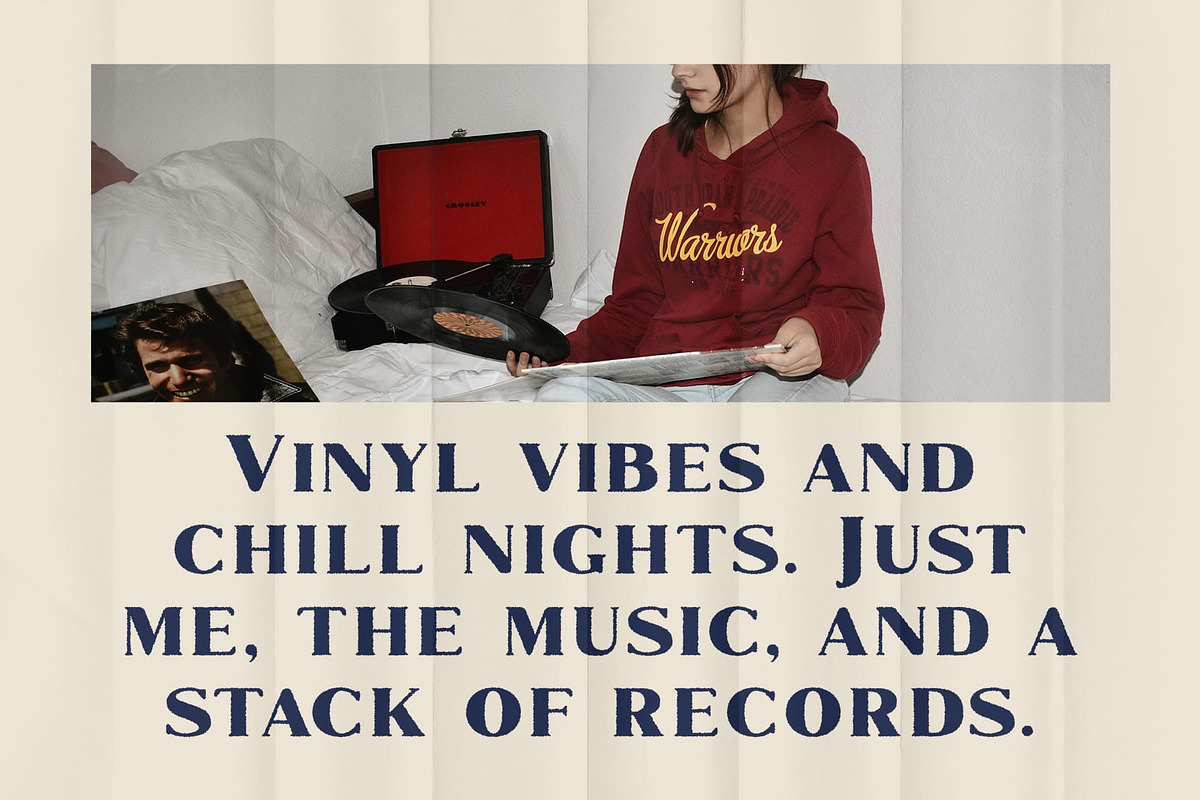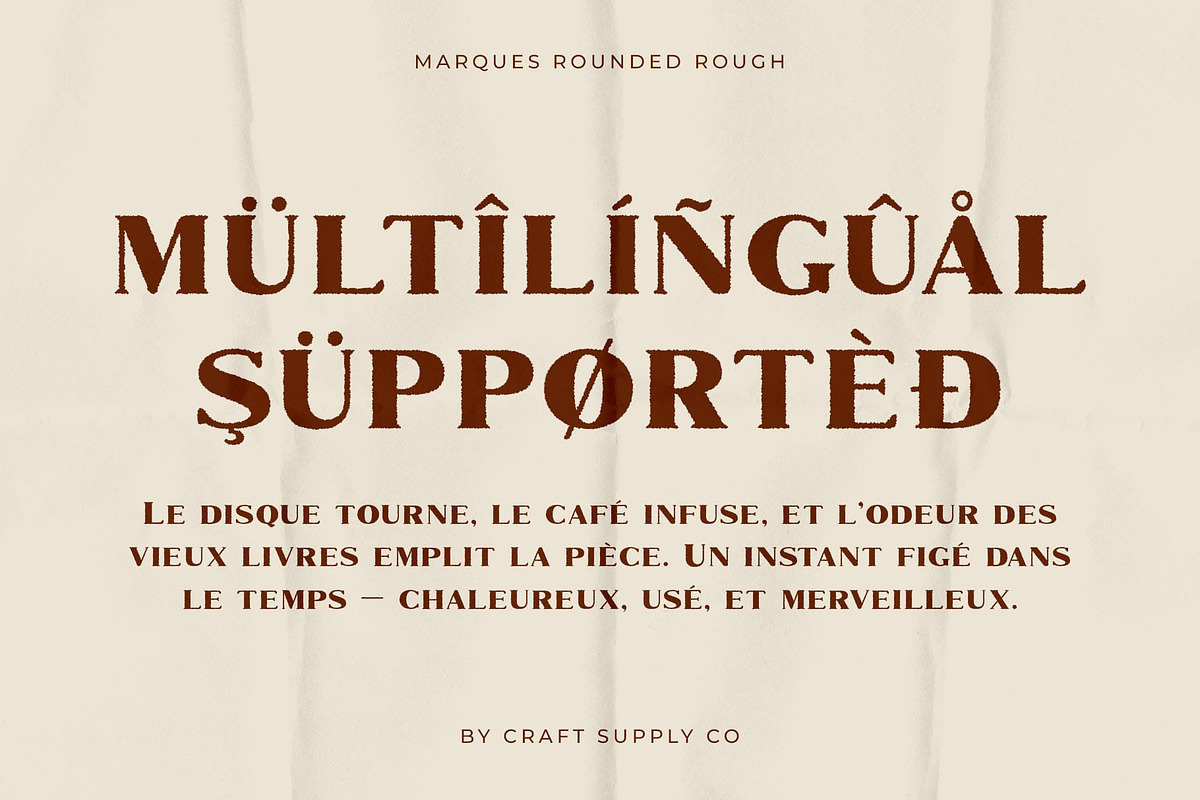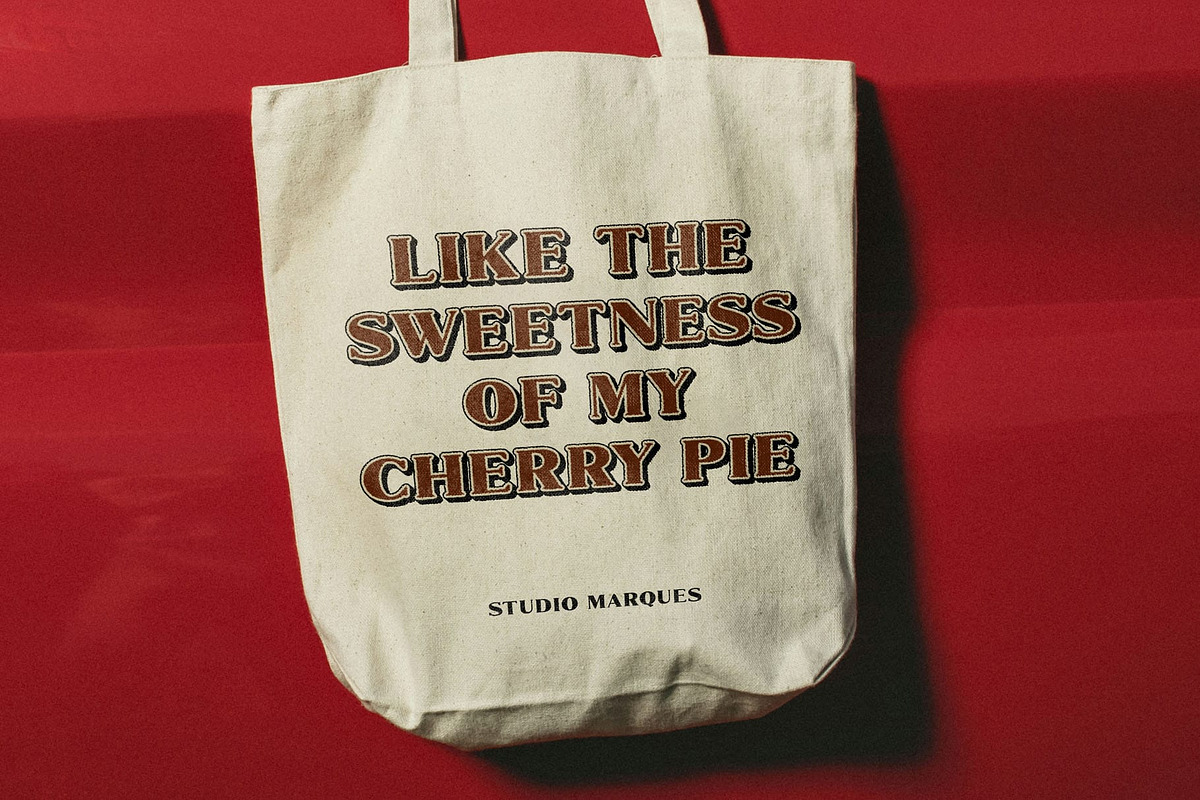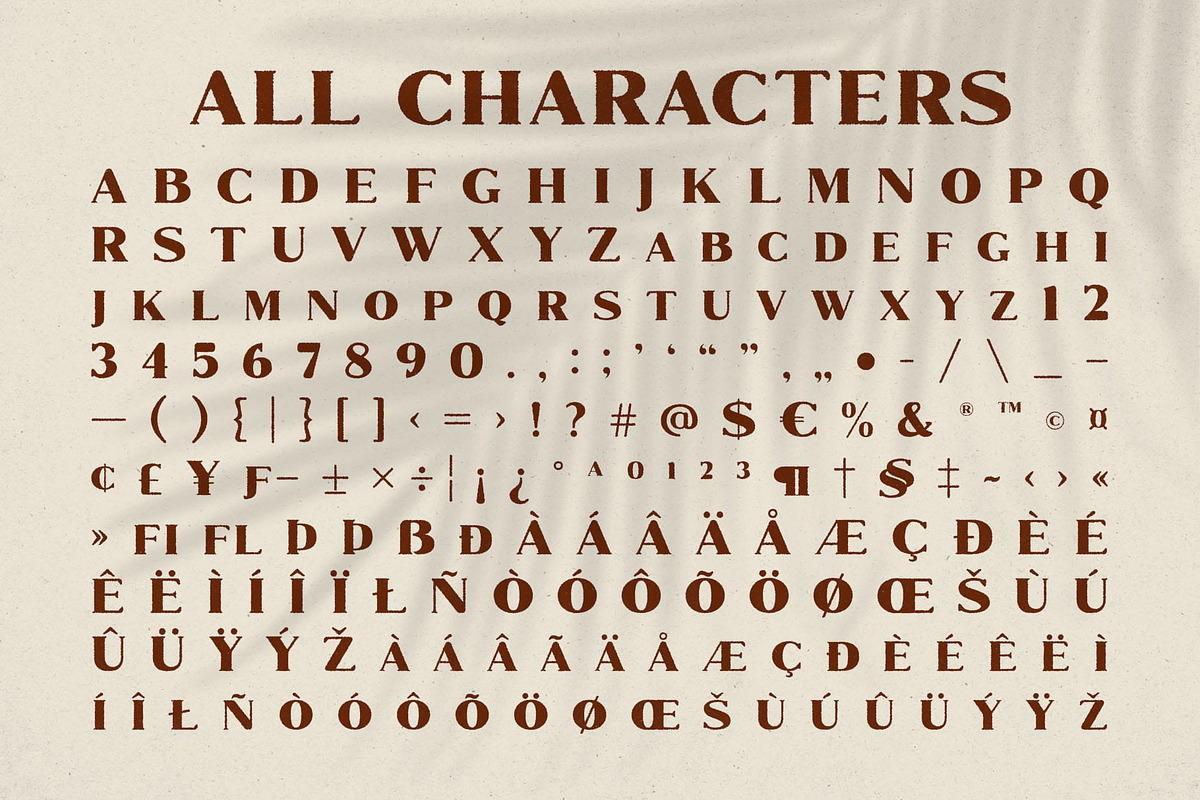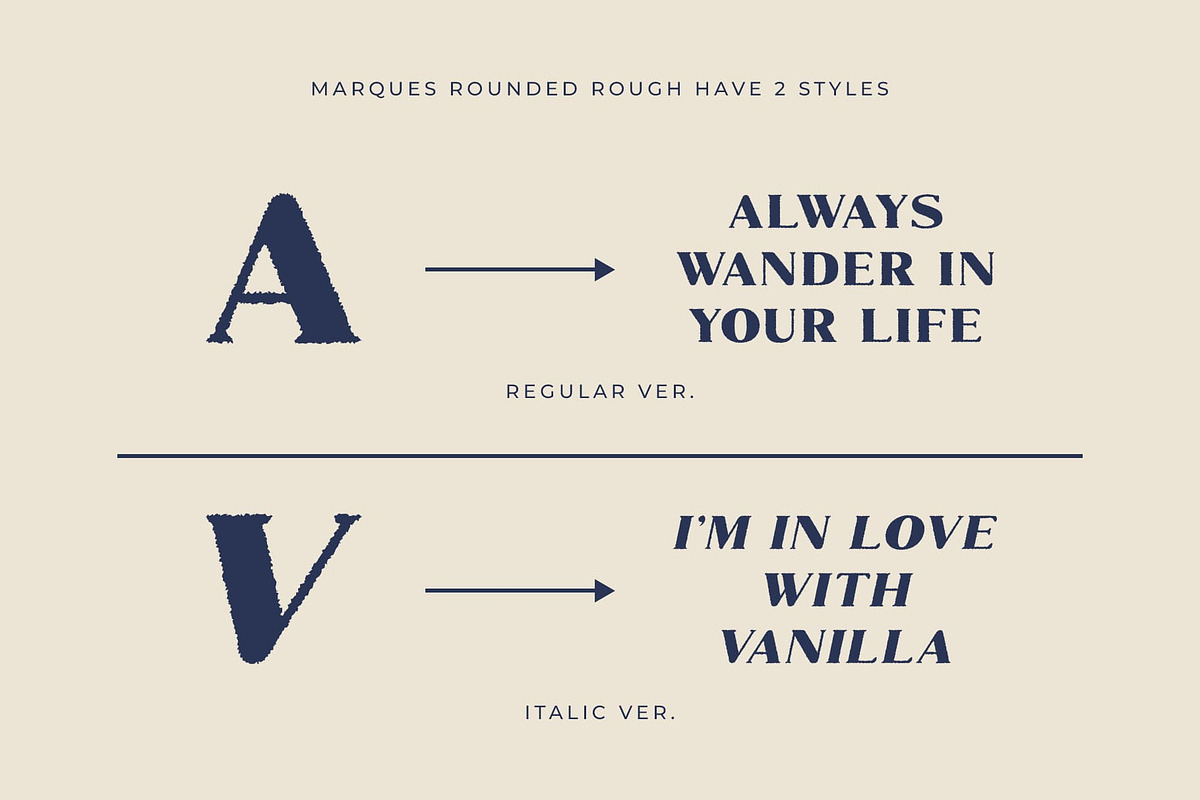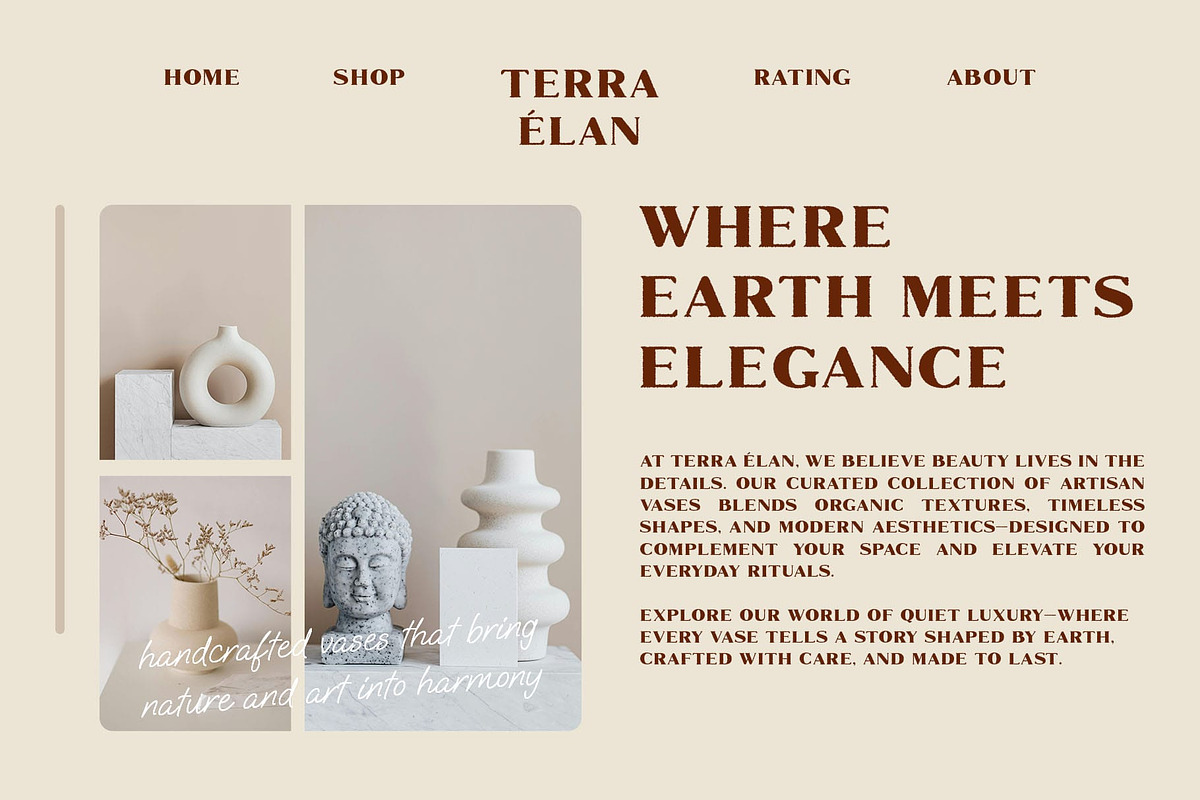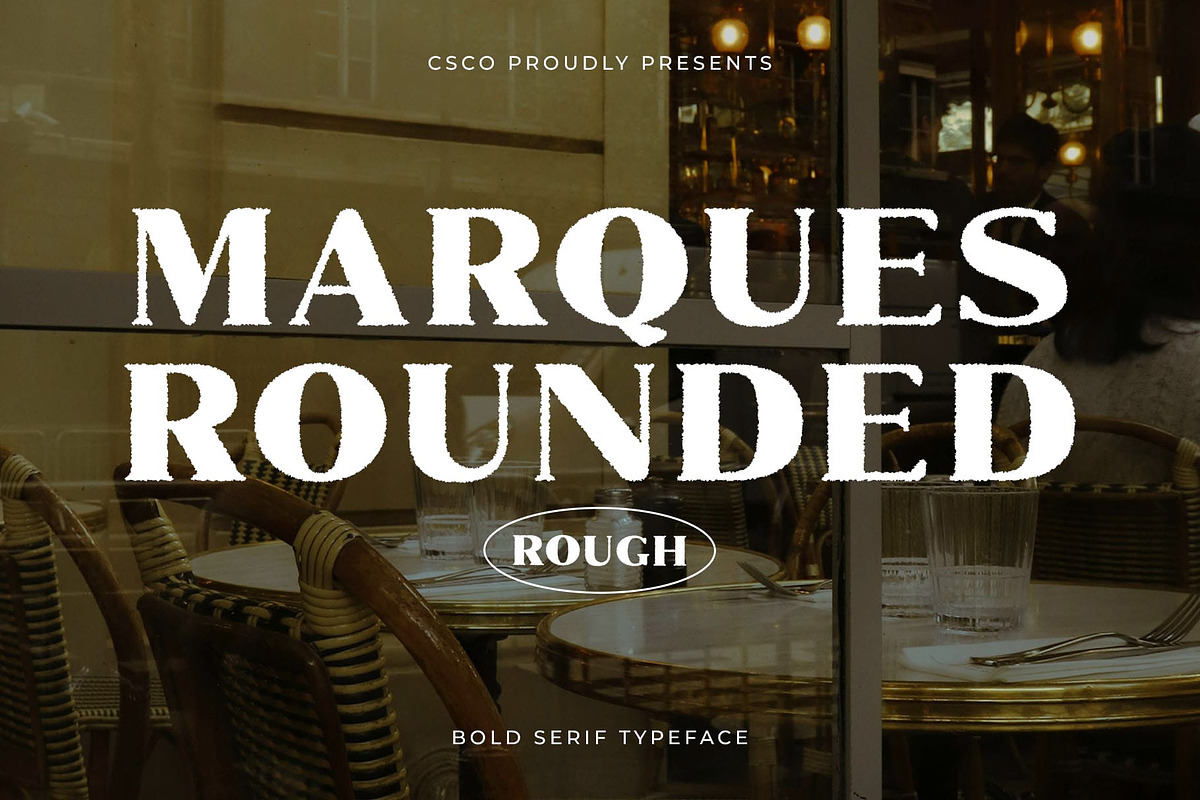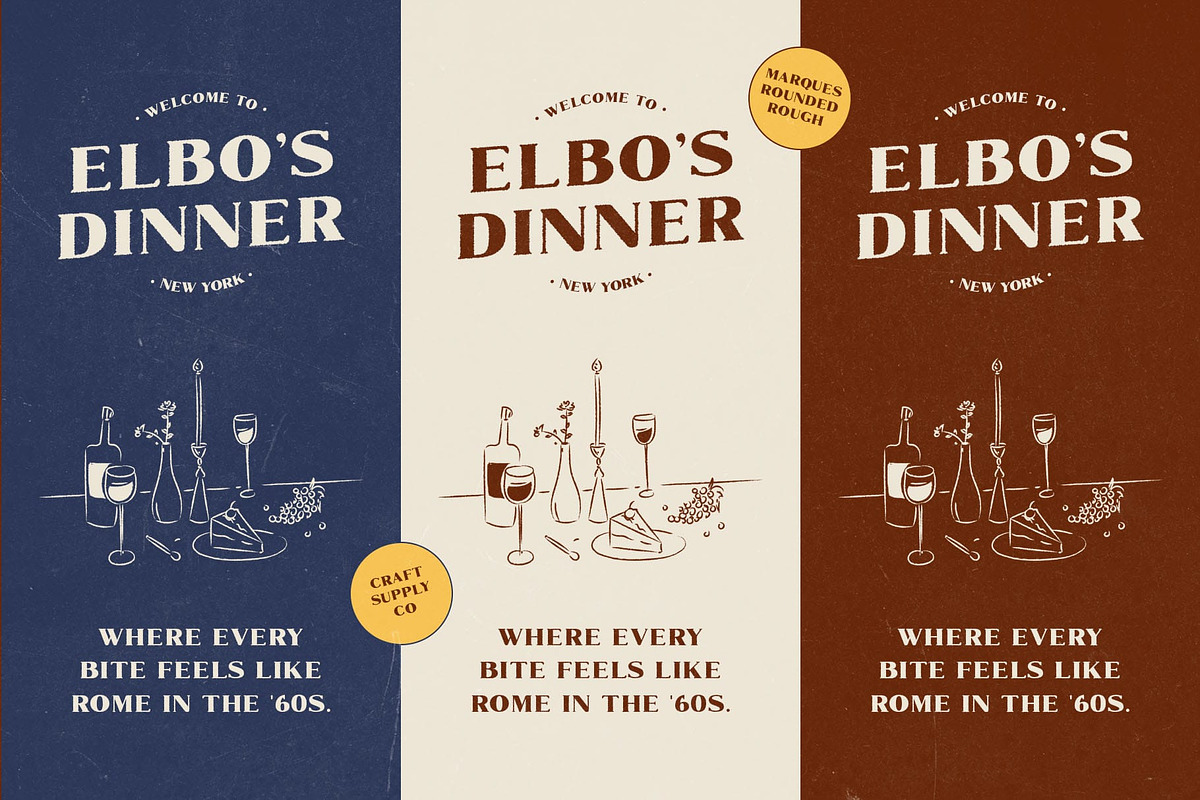
Marques Rounded Rough
Marques Rounded Rough – Bold Elegance with a Rugged Edge
Bold, Rounded Forms with Timeless Sophistication Marques Rounded Rough is a modern serif font that blends classic design with bold, rounded shapes. Its unique structure combines the elegance of traditional serif fonts with a modern, approachable feel, offering a perfect balance of refinement and strength. The rounded edges soften the boldness of the design, giving it a contemporary touch without losing its sophisticated appeal.
Rugged Texture for a Distinctive Character What sets this classic modern font apart is its rough texture effect, which adds an unexpected ruggedness to the font. This gives the font a raw, tactile feel that contrasts with its otherwise elegant forms. The textured finish evokes a sense of authenticity and personality, making it ideal for designs that aim to make a memorable impression while retaining a sense of class.
Perfect for High-Impact Branding and Editorial Designs Its unique blend of elegance and roughness makes it perfect for high-impact projects where you want to leave a lasting impression. It adds character to every word, making it ideal for luxury brands, editorial publications, or any creative project seeking to blend sophistication with an edge. This rounded font brings together timeless sophistication and bold, rugged character in a way that few fonts can.
- Marques Rounded Rough Regular
- Marques Rounded Rough Italic